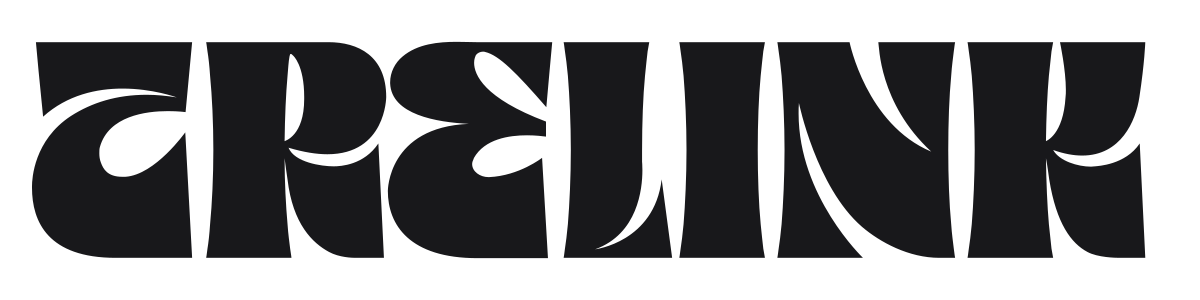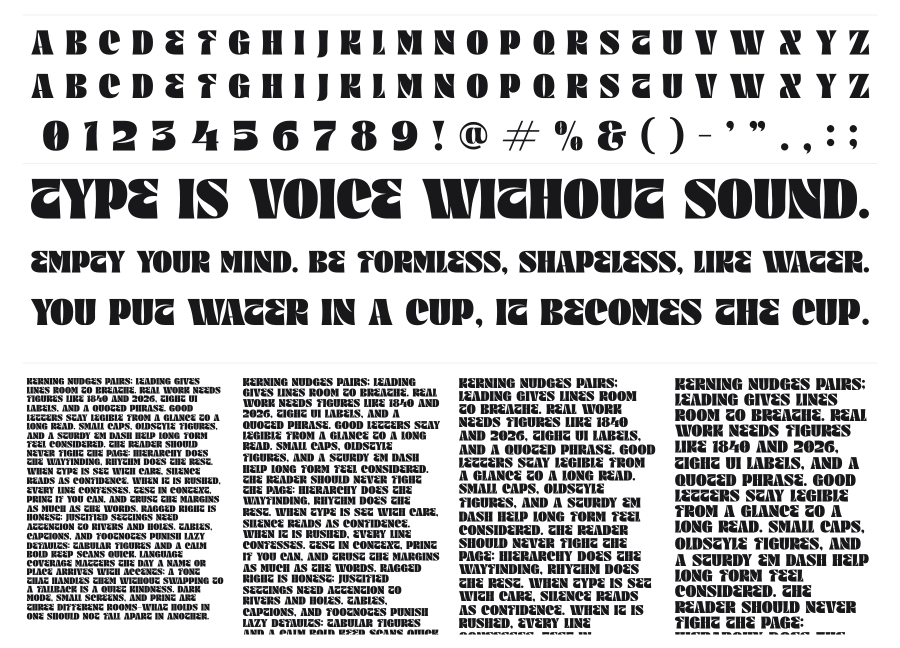
Trelink
Trelink is a heavy retro serif drenched in 1960s–70s psychedelic poster DNA. Extreme stroke contrast between thick stems and hairline-thin strokes creates a pulsating, almost optical illusion quality at display sizes. The design channels vintage rock lettering and counterculture graphics with real commitment.